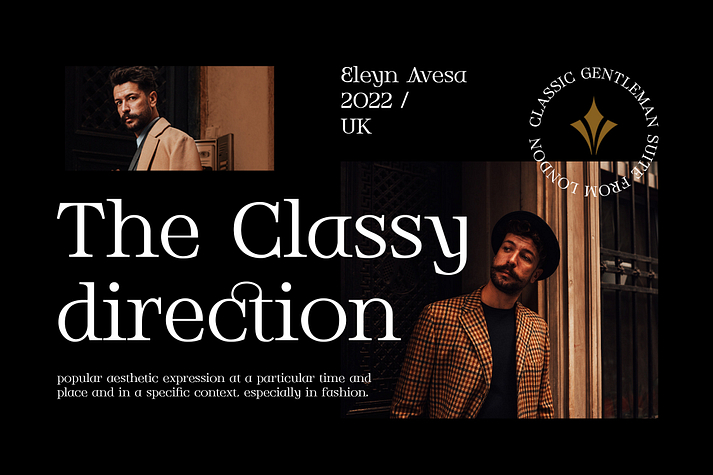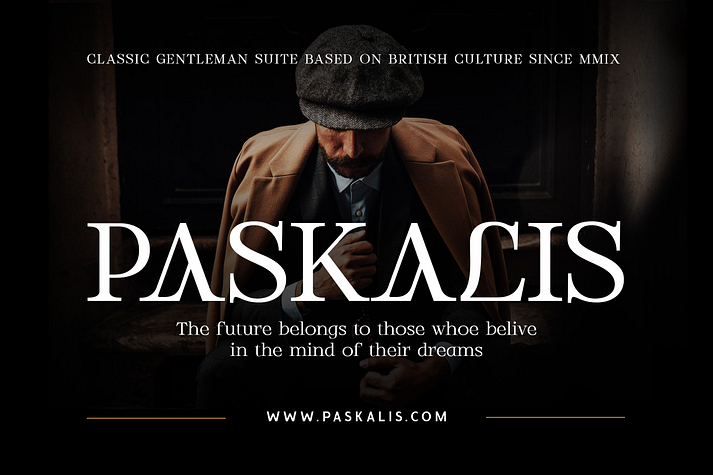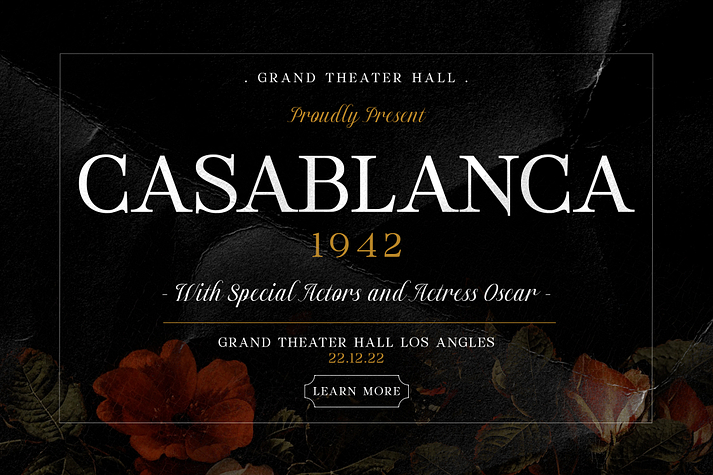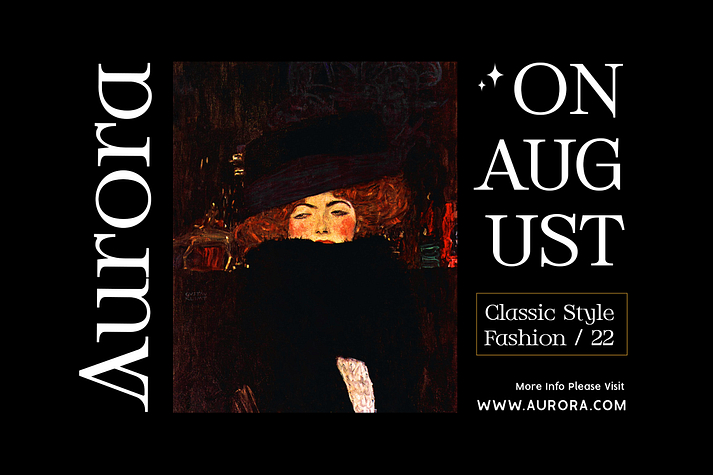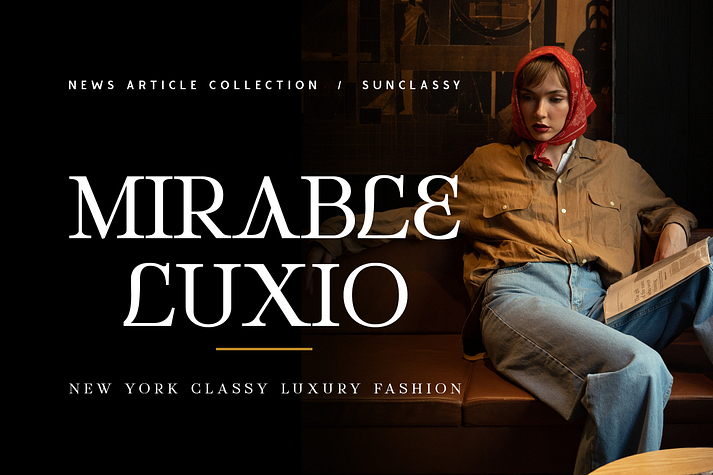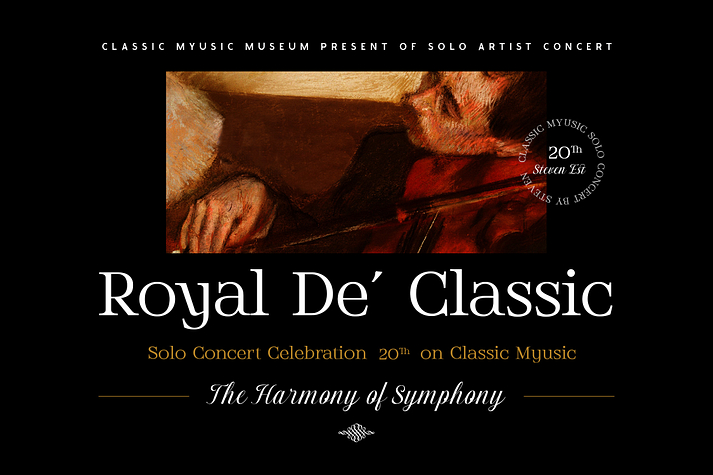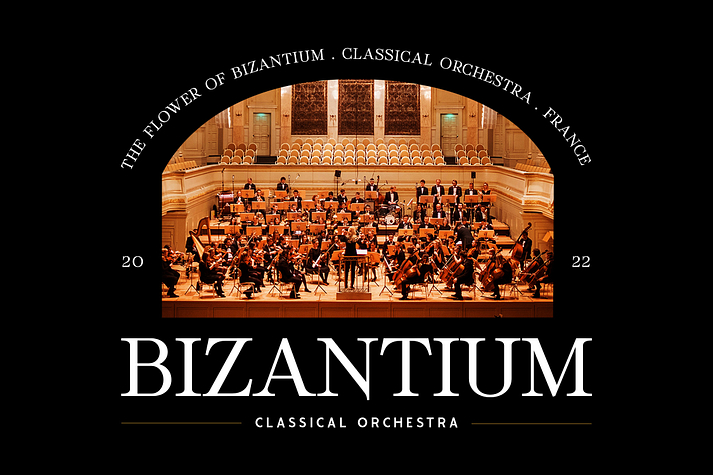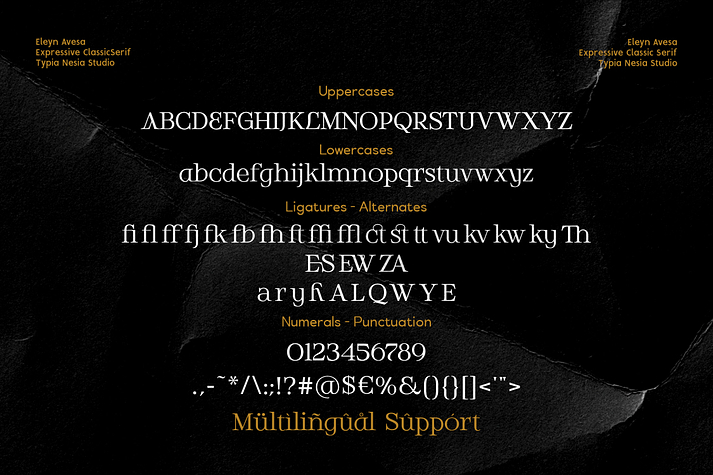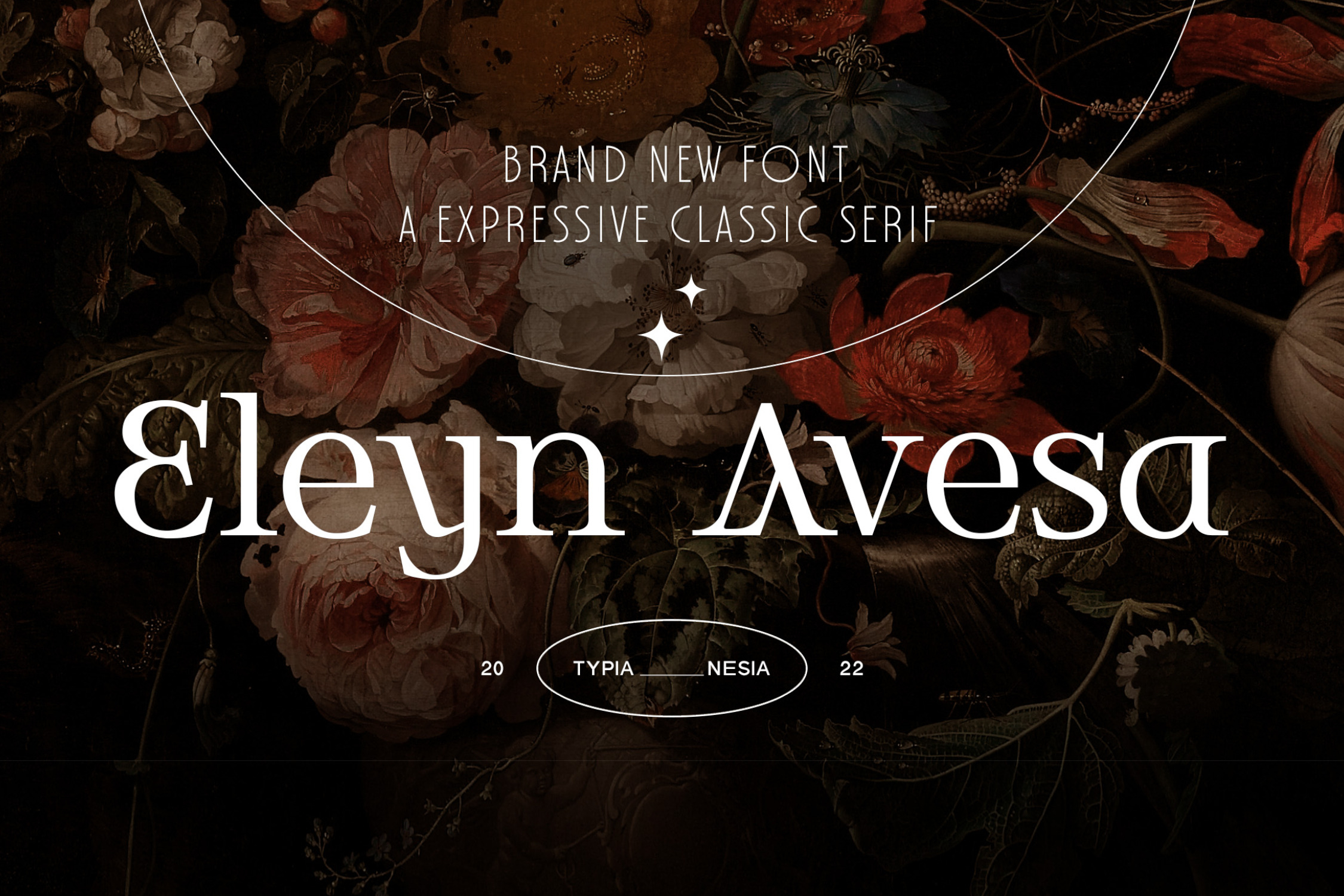
Eleyn Avesa
Eleyn Avesa is a font family published by Typia Nesia.
Eleyn Avesa - Classic Elegant Display Serif - Vintage Fantasy Font - Royal and Luxury Font
Eleyn Avesa Serif is perfect for your up coming projects. Such as luxury logo and branding, classy editorial design, woman magazine, cosmetic brand, fashion promotional, art gallery branding, museum, historical of architectural, boutique branding, stationery design, blog design, modern advertising design, card invitation, art quote, home decor, fantasy movie / game, novel / book / cover title, special events and any more.
Foundry Typia Nesia